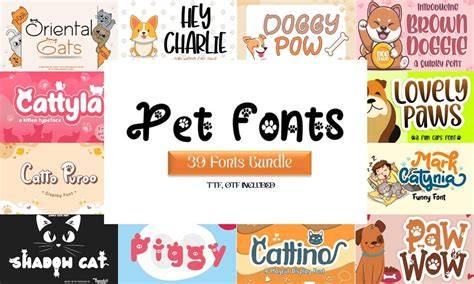
Let Your Pets Express Their Personality With Pet Fonts
What Are Pet Fonts?
Pet fonts are a new way for pet owners to show off their pet's unique personality. Using the latest technology, pet owners are now able to create custom fonts that reflect their pet's individual traits. This means that you can give your pet a fun and creative look that is sure to make them stand out from the crowd. Pet fonts allow you to customize everything from the font style and size to the color and design of the font.
Pet fonts are perfect for all kinds of pets, including cats, dogs, birds, and even reptiles. With so many different styles to choose from, you can be sure that your pet's look will be one-of-a-kind. Pet fonts can be used on a variety of products, including pet apparel, toys, collars, and other accessories. They are also a great way to make your pet's name stand out and be recognized.
How to Choose the Right Pet Font?
When it comes to choosing the right pet font for your pet, there are a few things to consider. First, you'll want to take into account your pet's personality. If your pet is laid-back and relaxed, a more playful font might be best. On the other hand, if your pet is more energetic, a bold and vibrant font might be more suitable.
You'll also want to think about the size of the font. If your pet is small, such as a kitten or a puppy, then you'll want to choose a smaller font that won't overwhelm the pet. On the other hand, larger pets such as dogs or cats might look better with a larger font.
Finally, you'll want to think about the color of the font. You'll want to choose a color that will compliment your pet's coat. If your pet has a dark coat, then you'll want to choose a lighter font. If your pet has a light coat, then you'll want to choose a darker font. You can also mix and match colors to create a unique look for your pet.
Benefits of Pet Fonts
There are many benefits of pet fonts. For starters, they are a great way to show off your pet's unique personality. They can also be used to customize pet products and make them stand out from the crowd. Pet fonts also make it easier for owners to label and identify their pet's names and identification tags.
Pet fonts are also a great way to add a personal touch to your pet's look. Whether you choose to use a bold and vibrant font or one that is more subtle and relaxed, pet fonts are sure to make your pet stand out from the crowd. Finally, pet fonts are a great way to show off your pet's unique personality and make them look extra special.
Pet fonts are a great way to show off your pet's unique personality and make them look extra special. With so many different styles to choose from, you can be sure that your pet's look will be one-of-a-kind. Whether you are looking for a bold and vibrant font or something more subtle and relaxed, pet fonts are the perfect way to customize your pet's look. So don't wait any longer - start expressing your pet's personality with pet fonts today!